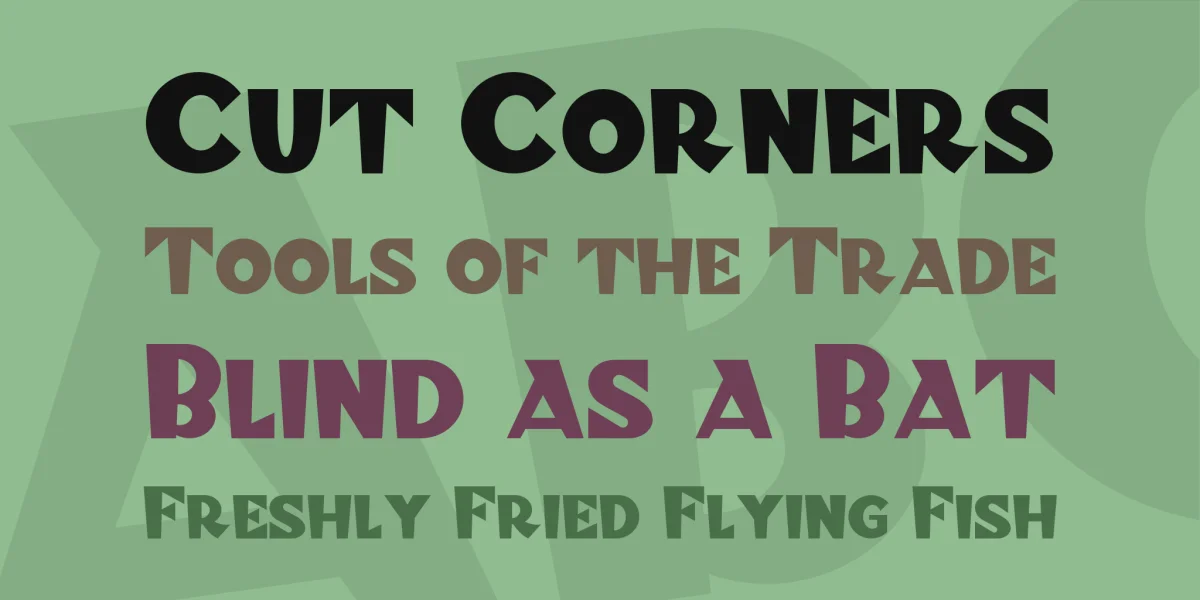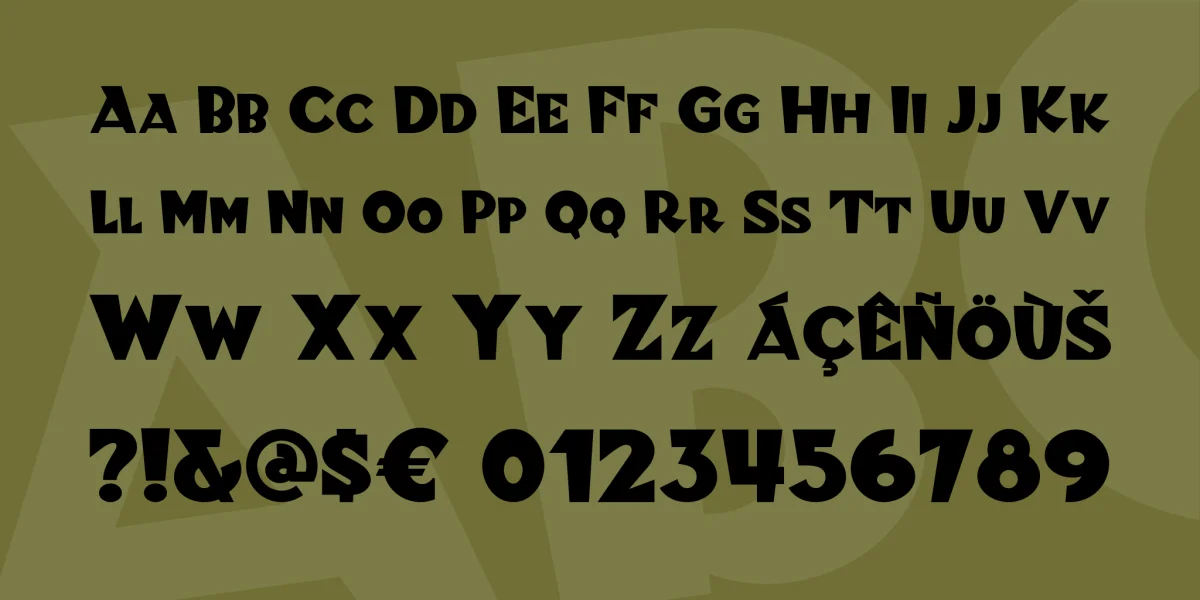
A Lufthansa Airlines baggage label from 1936 provided the inspiration for this genuinely German typeface, with strong Art Deco influences. Both versions include the complete Unicode Latin 1252, Central European 1250 and Turkish 1254 character sets, as well as localization for Lithuanian, Moldovan and Romanian.